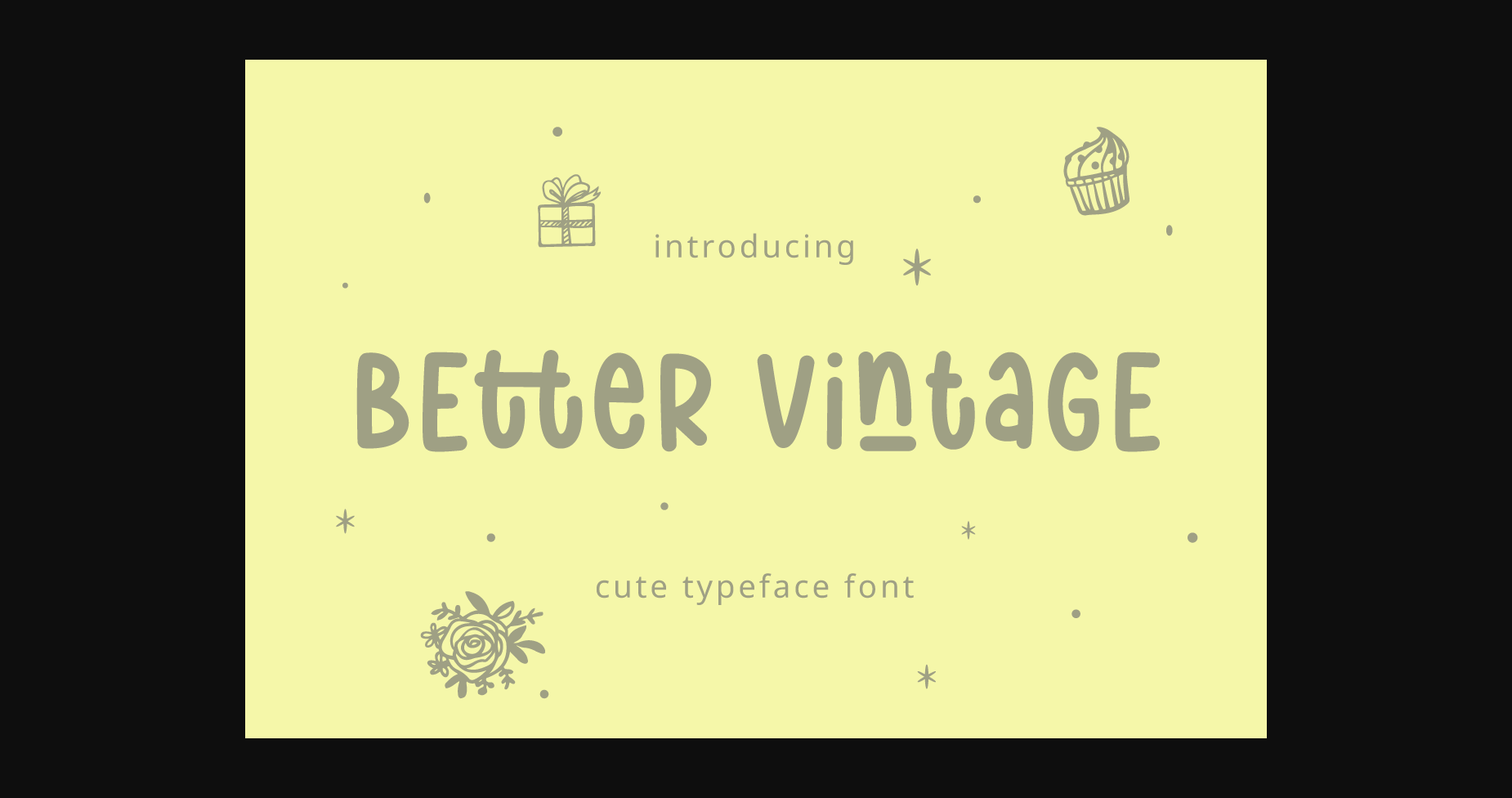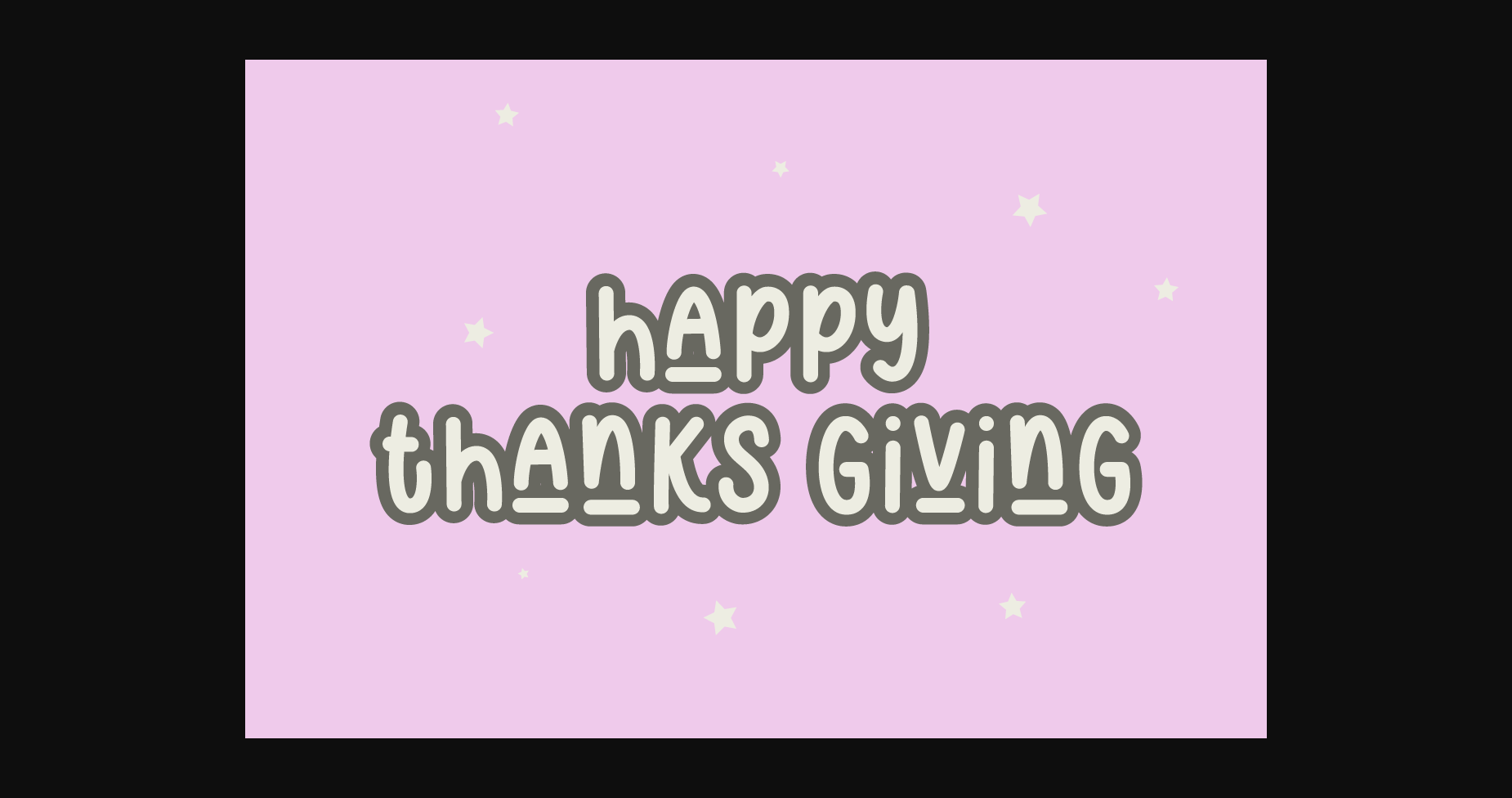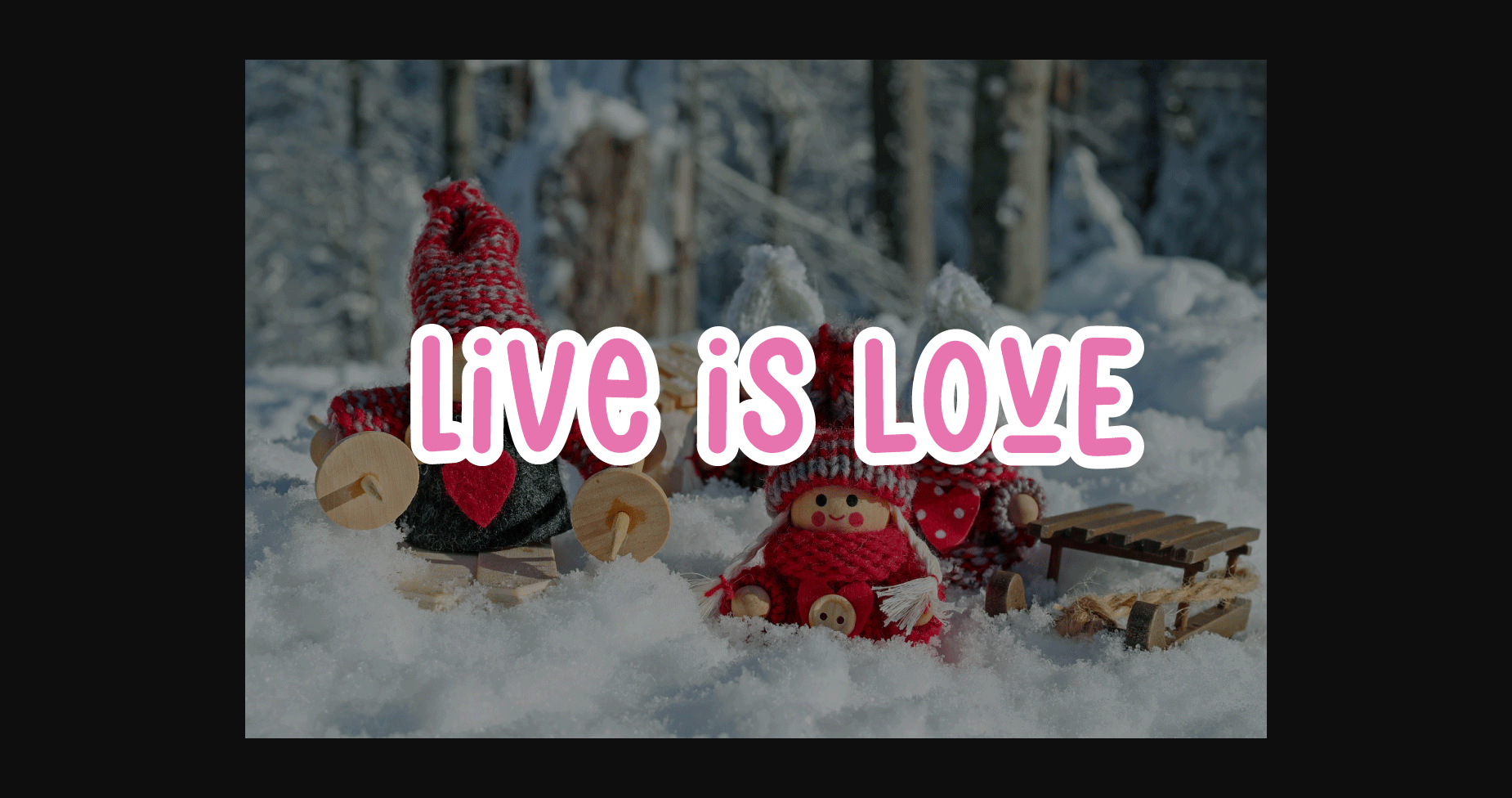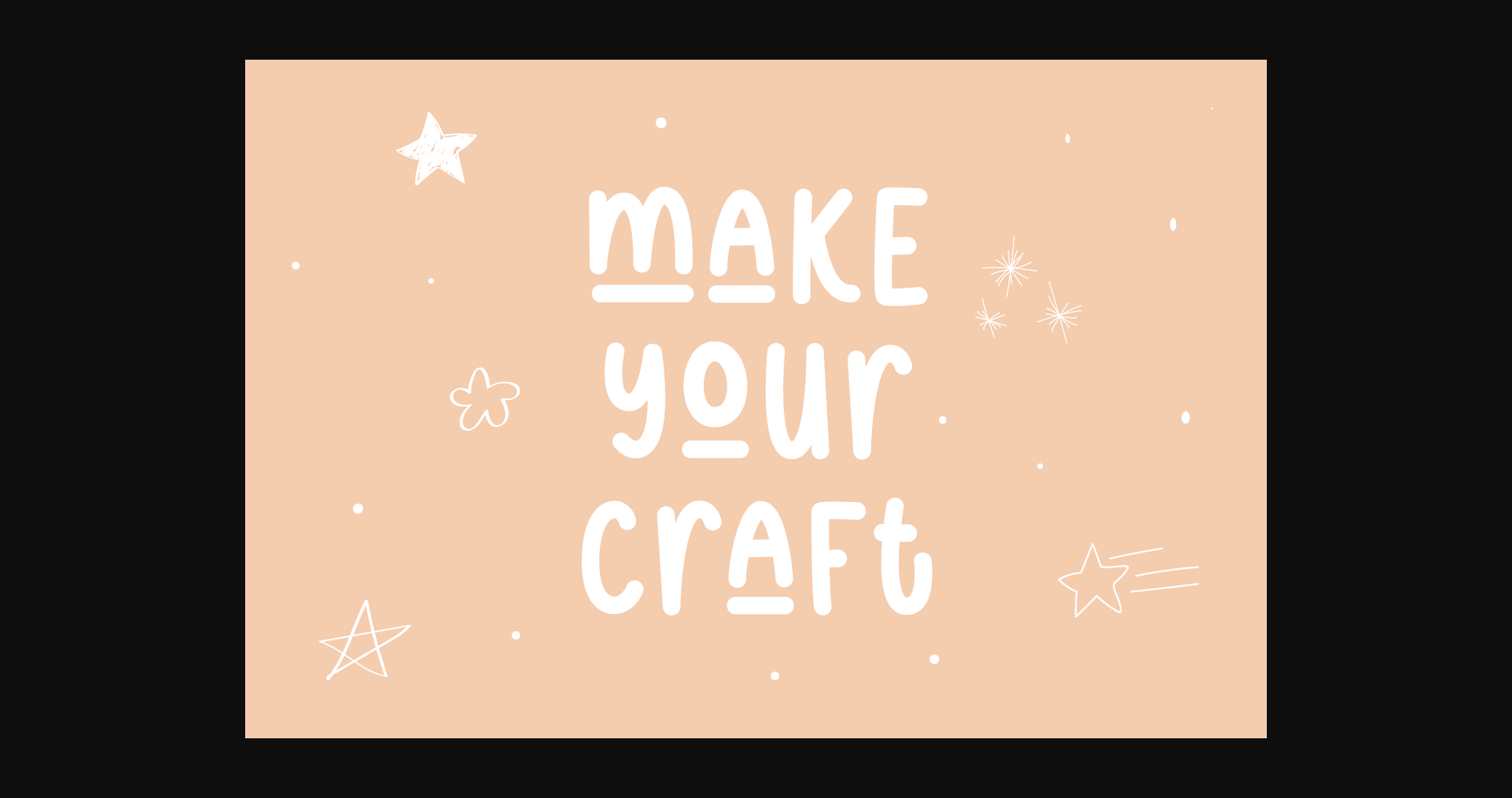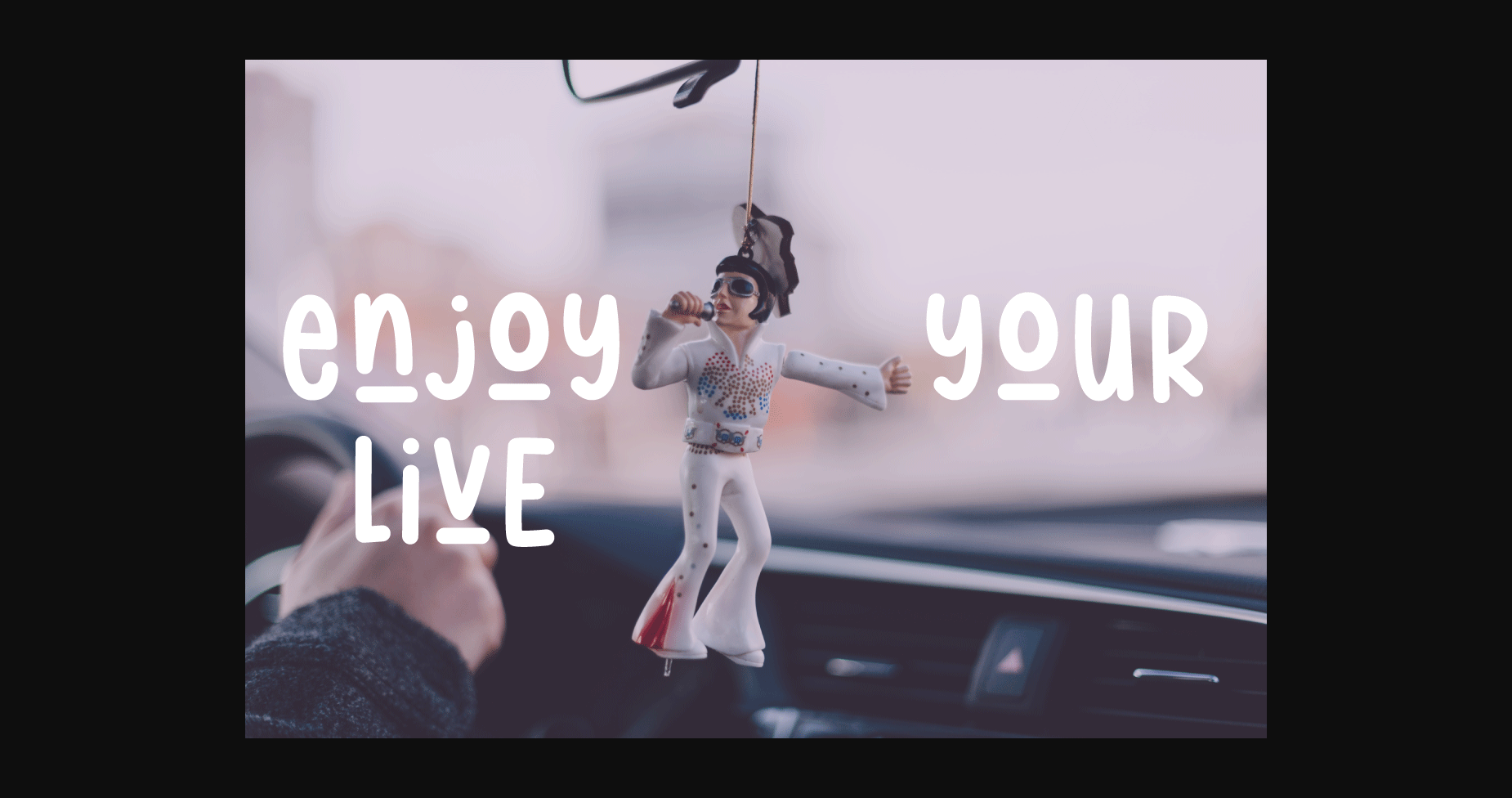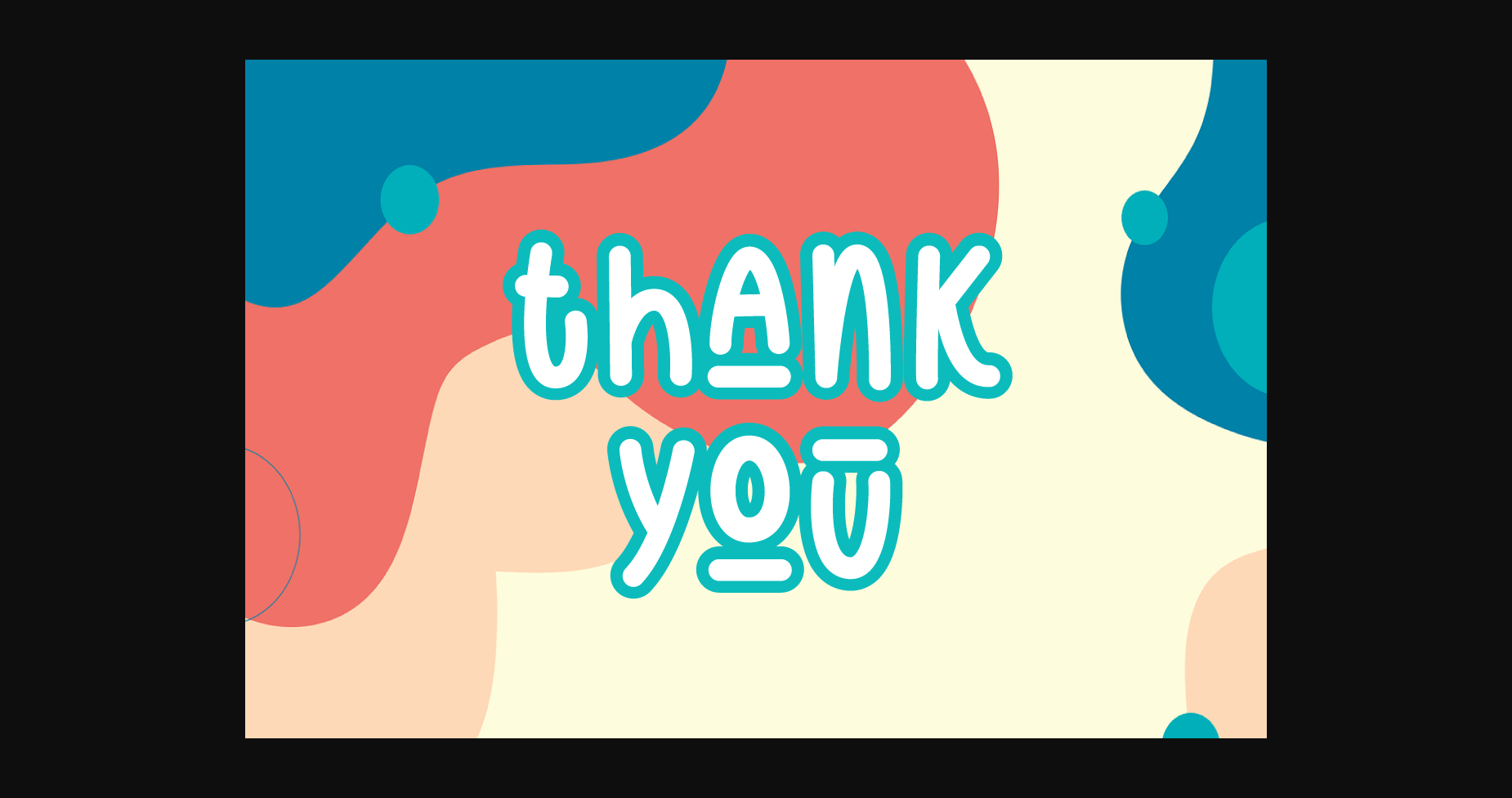
Better Vintage is a simple and cute sans serif font. It is PUA encoded which means you can access all of the glyphs and swashes with ease! Add it confidently to your projects, and you will love the results.